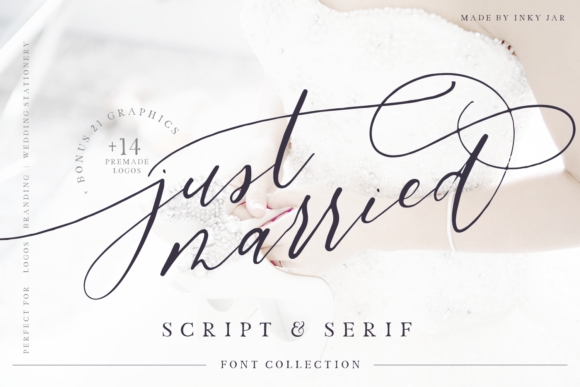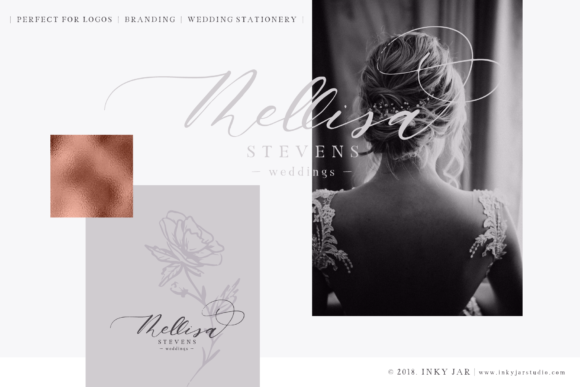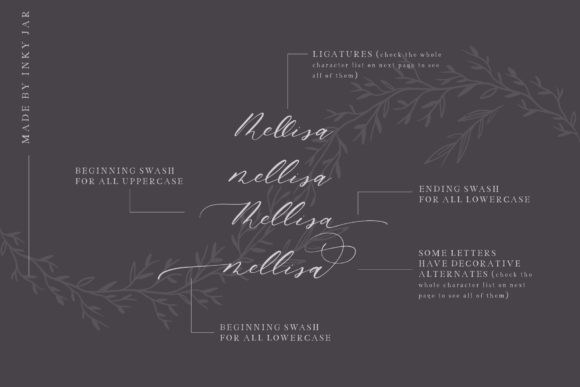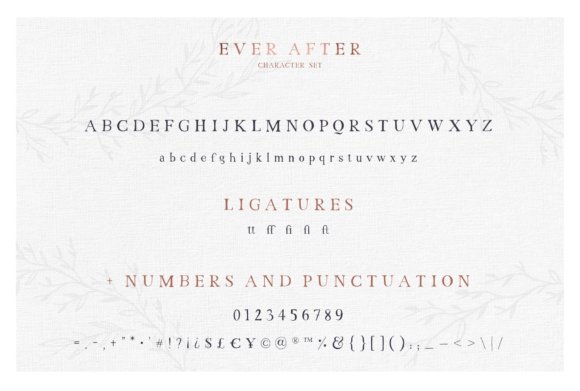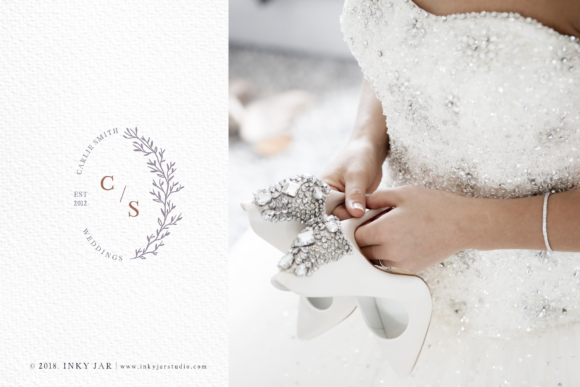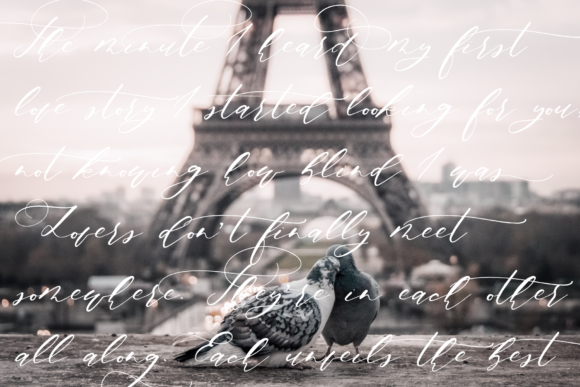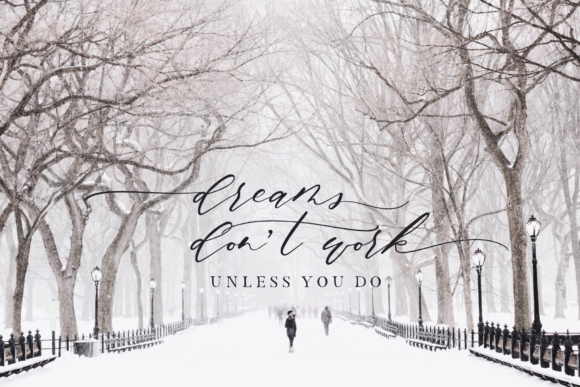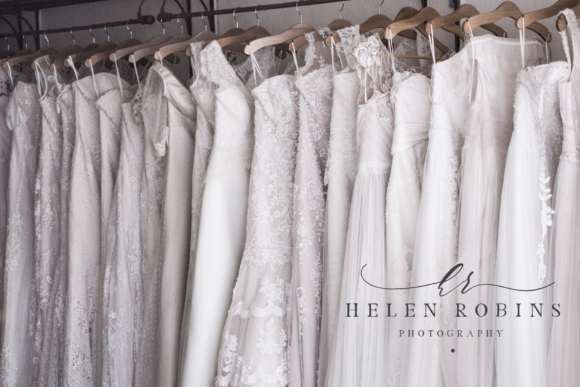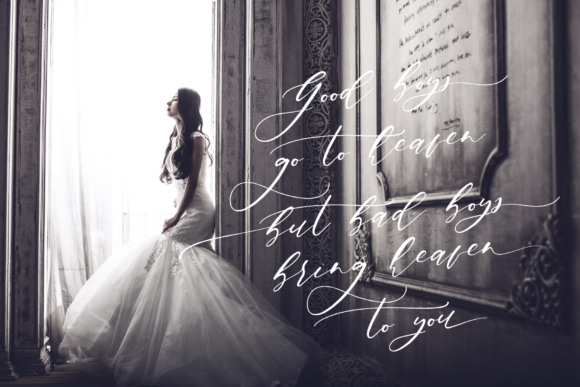
Just Married Duo Font
About Just Married Duo Font
The Just Married is a delicate font duo inspired by love, weddings and romance!
It’s perfect for logos & branding, but also for wedding stationery and is full of extra goodies!
Included in this elegant font duo are also 2 bonus files!